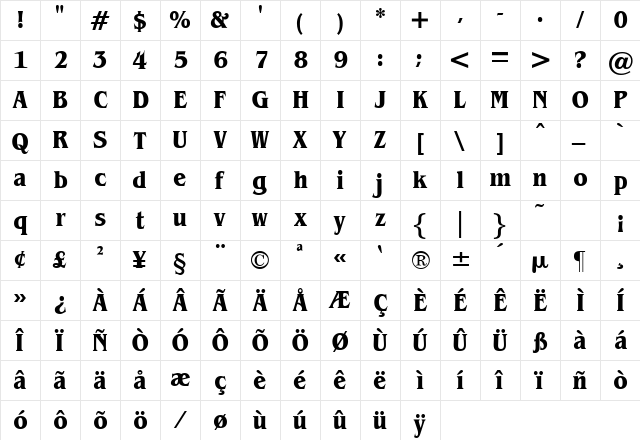
BrintonCondensed Regular
Design Context for BrintonCondensed Typeface
BrintonCondensed takes a measured approach to typography — its balanced proportions and neutral character make it a reliable workhorse for both digital and print work. The condensed width makes it efficient for tight spaces without sacrificing legibility.